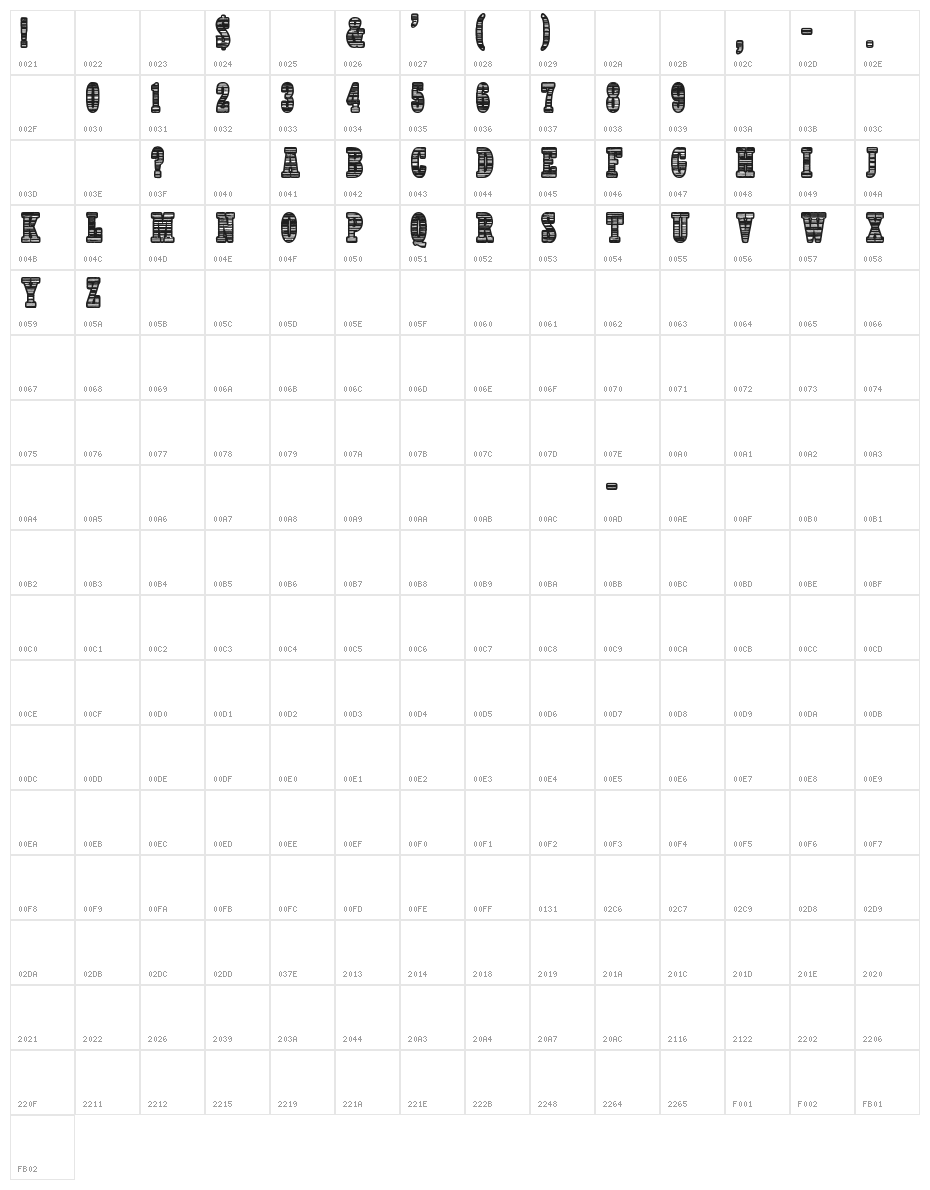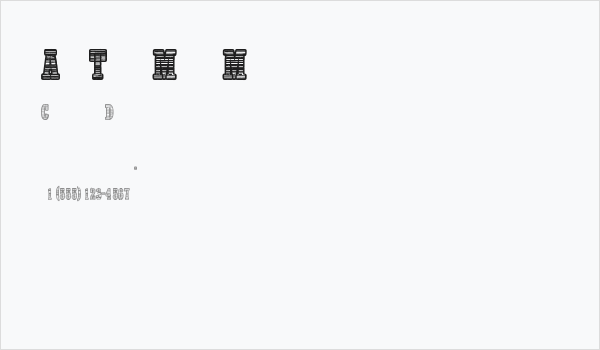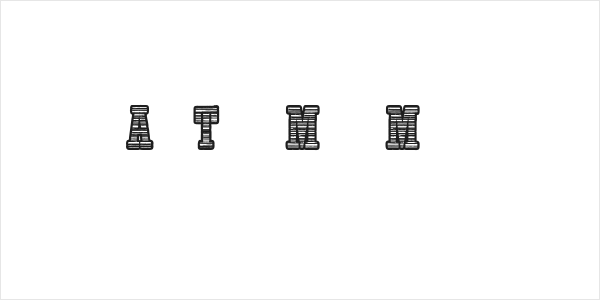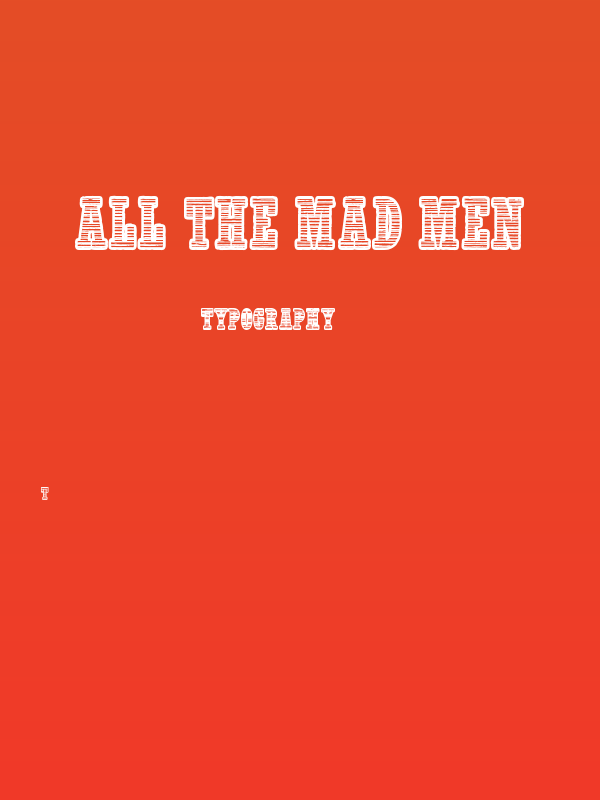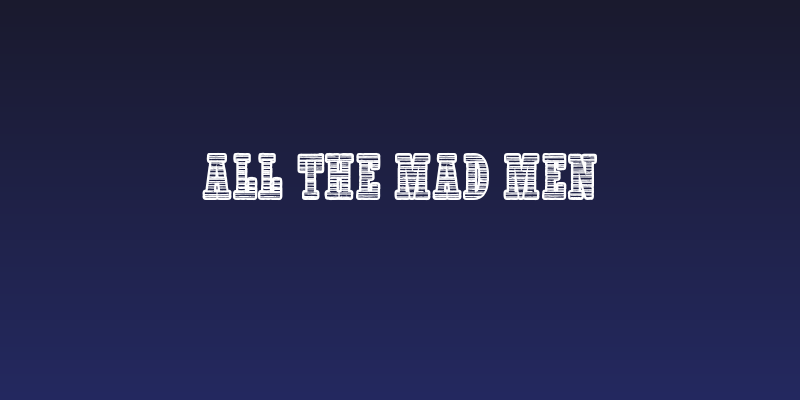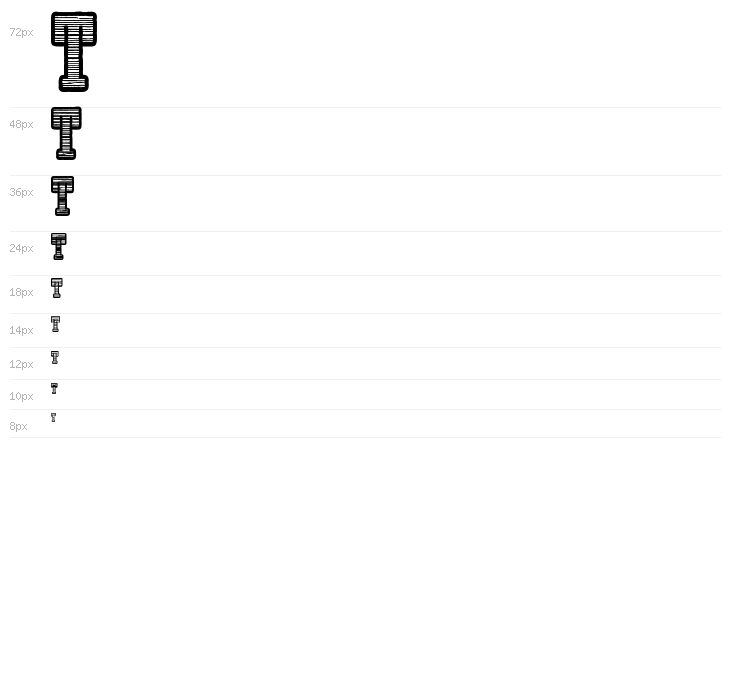
All The Mad Men Font
All The Mad Men Description
This font features a bold, decorative style with a distinct vintage flair. Each character is outlined with a thick, shadowed border, giving it a three-dimensional appearance. The inner lines of the letters are filled with a series of horizontal stripes, adding texture and depth. The uppercase letters are particularly striking, with a strong presence that commands attention. The numbers and special characters maintain the same bold and textured design, ensuring consistency across all elements. This font is ideal for projects that require a retro or nostalgic touch, such as posters, signage, or branding materials.
| Proposed Projects | Ideal for retro-themed posters, signage, branding, and packaging designs. |